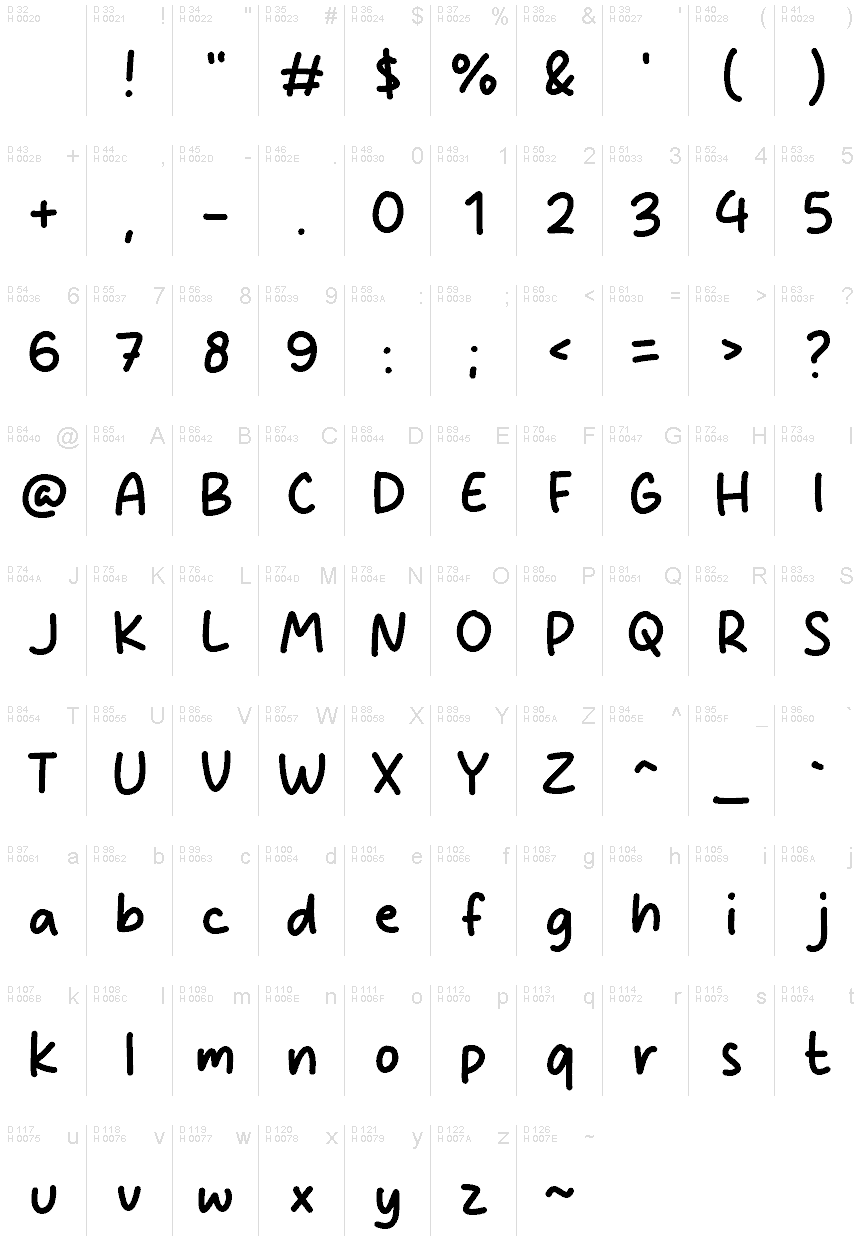
Sunday Work
\nSunday Work font is designed by MJType with a charming, casual aesthetic. The letters give off a friendly appearance and contemporary vibe with their approachable quality. And as you may expect after seeing its name, this free handwritten font has a hand-drawn feeling where each letter showcases itself with an originality that’s both modern and unique.
Sunday Work font can be the tool for branding items and logos or used for different artwork designs such as posters and magazine covers. Add it to your book covers, showing the title in an eye-catching manner among other advertising titles or use it to decorate packaging boxes/bags, fabric materials, stationery items, and invitation cards.